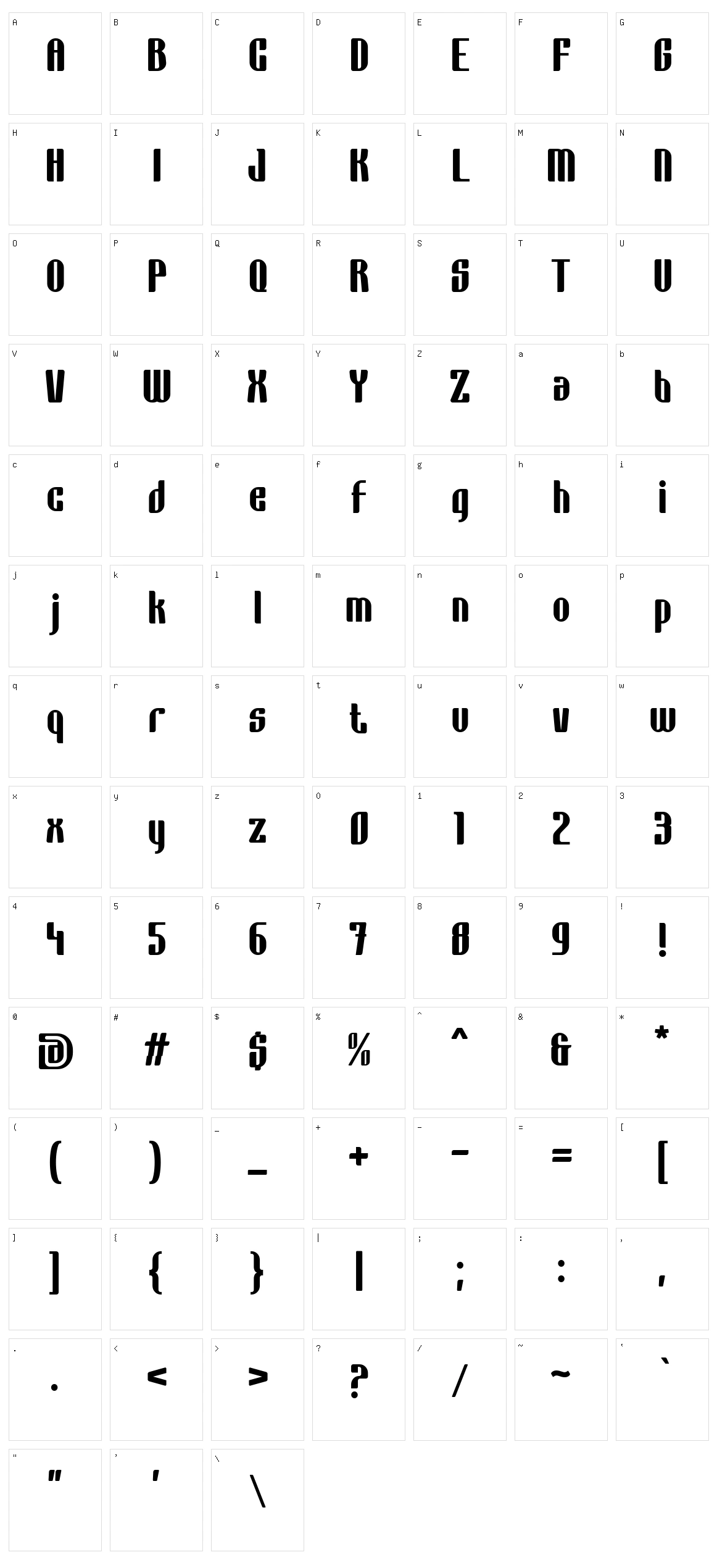
The free font Grage is carefully designed by Emanes Dsign, showcasing a thoughtful balance of creativity and usability and falls under the Sans serif font style. When you download the ZIP file, it contains only 273.65 KB of font files, making it lightweight and quick to download. Please review the license details below to understand permitted usage and distribution rights. If license information is not available, we recommend using this font for personal projects only or contacting the author directly for commercial usage permissions.